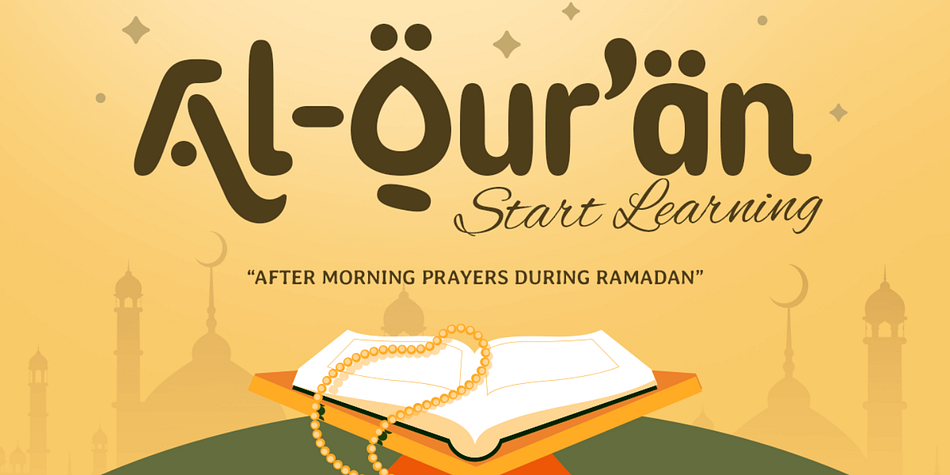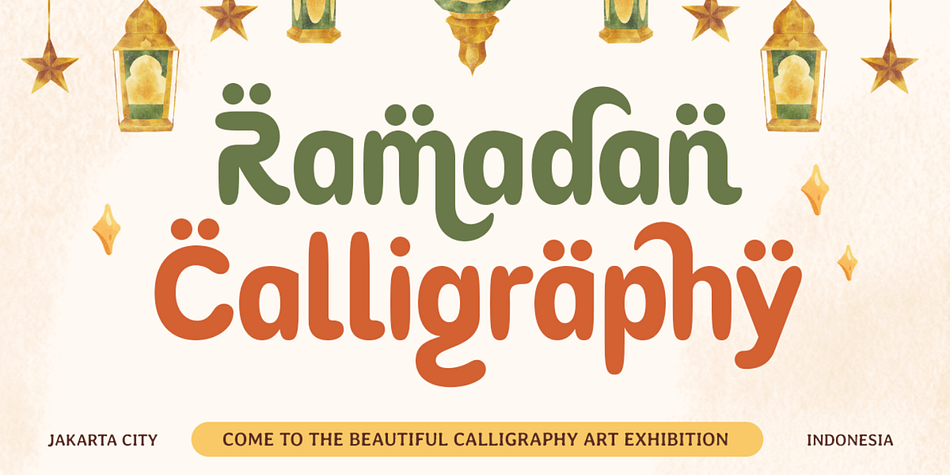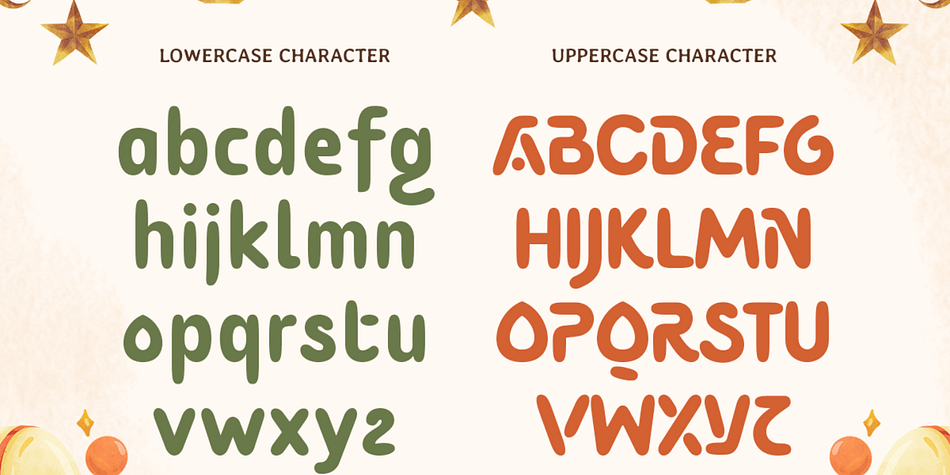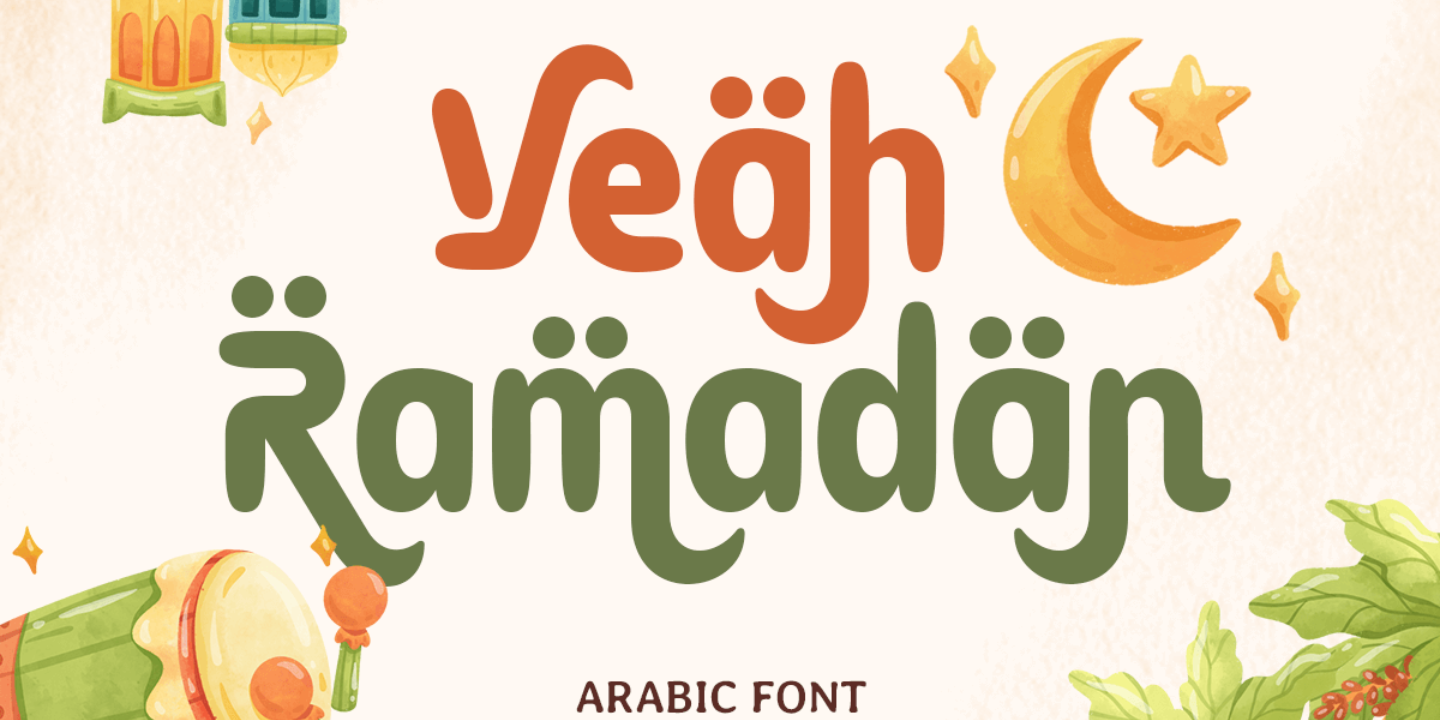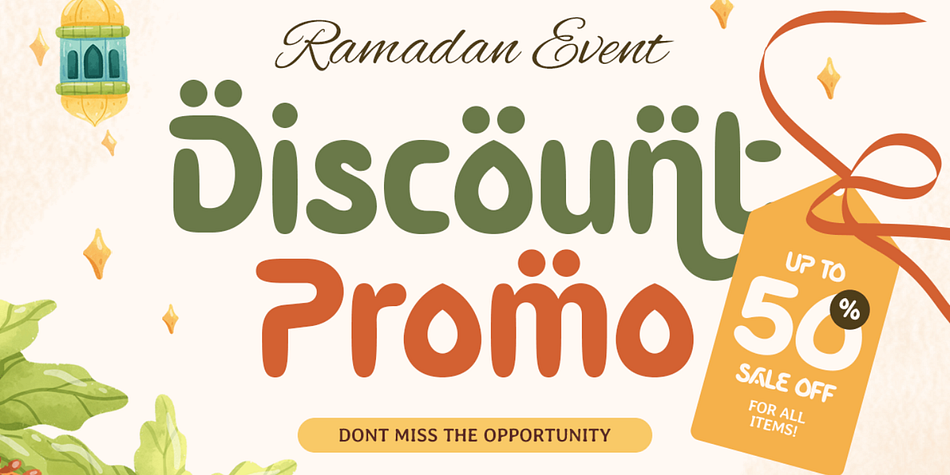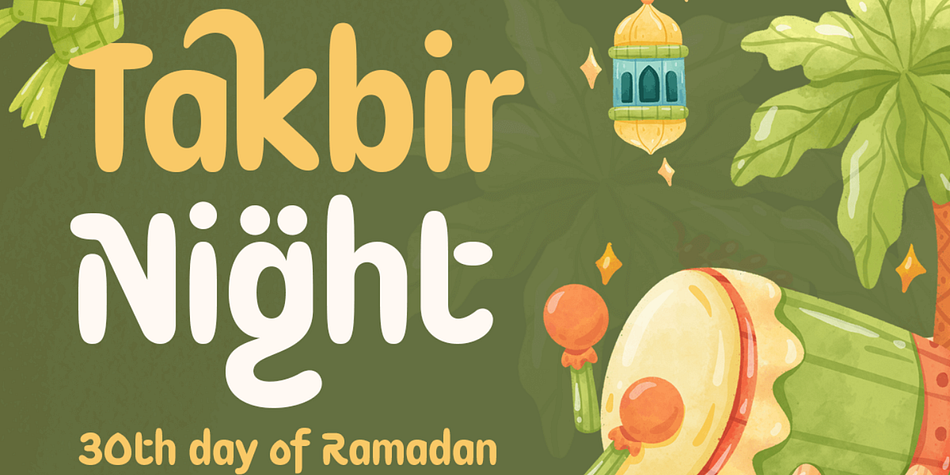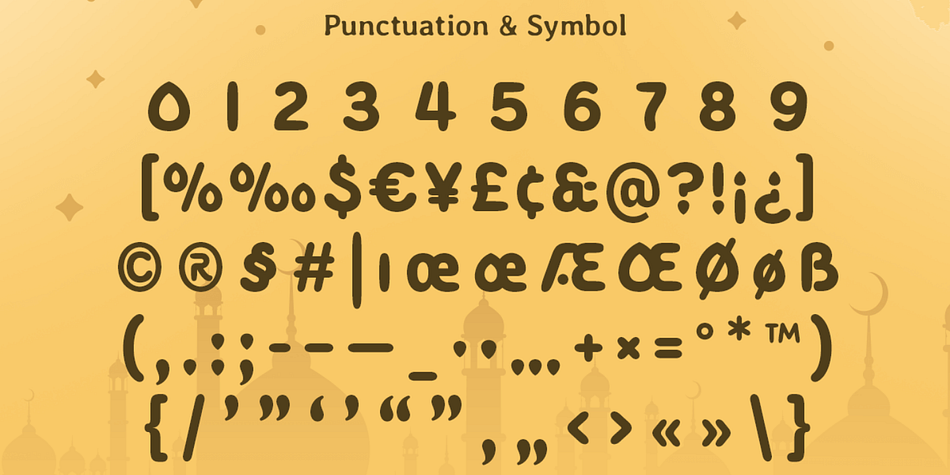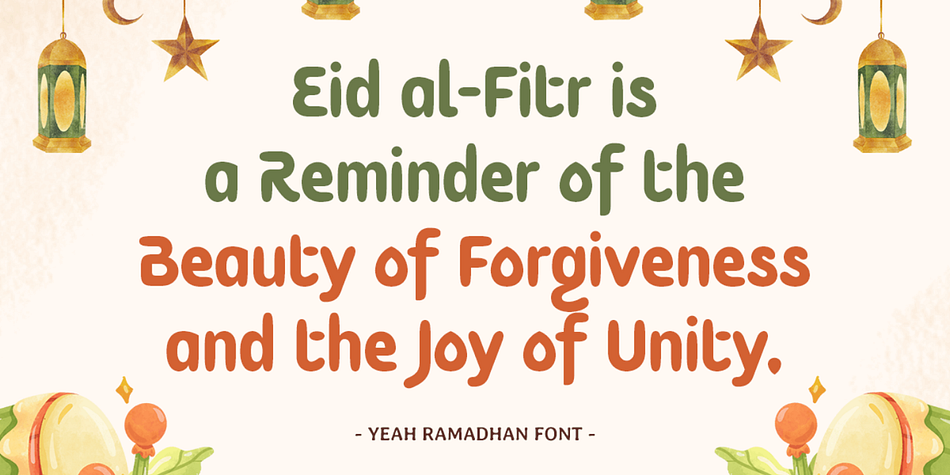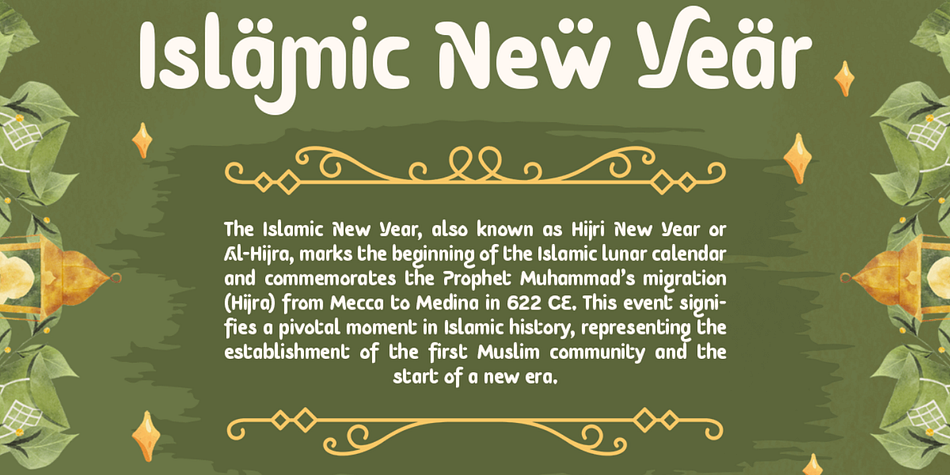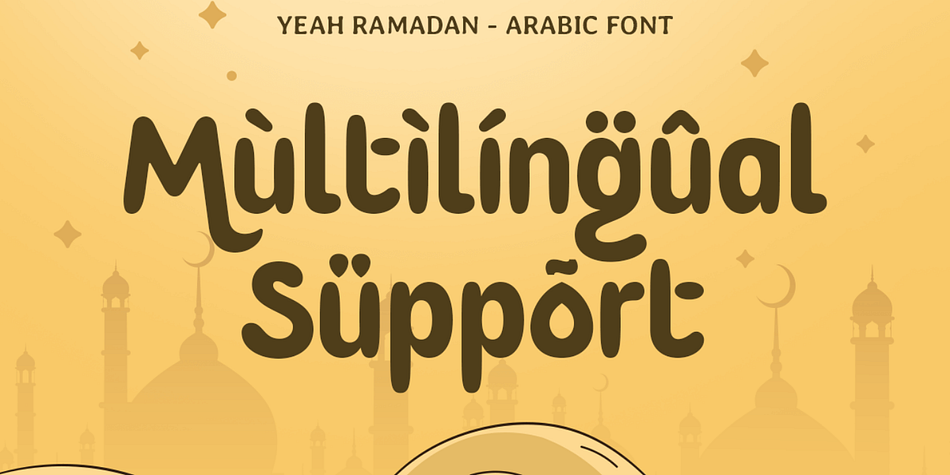
Celebrate the Spirit of Ramadan
Yeah Ramadan is a font inspired by the rich cultural heritage of Arabic calligraphy, capturing the festive and spiritual essence of Ramadan. With its graceful strokes and harmonious curves, this font brings tradition and modernity together in perfect balance.
Perfect for Festive Creations
Designed for celebration, Yeah Ramadan is ideal for creating invitations, greeting cards, packaging, and branding projects related to Islamic events. Whether you’re working on festive campaigns or elegant designs, this font radiates warmth and cultural significance.
A Blend of Art and Design
Yeah Ramadan transforms your designs into timeless pieces of art. Perfect for projects that celebrate Islamic culture and festive occasions, this font will add a touch of elegance and authenticity to your work.
Yeah Ramadan Arabic Font Features:
Alternates Characters Ready
Punctuation, Number, and Symbol
Uppercase and Lowercase
Opentype Features
Multilingual Characters available for:
Afrikaans, Albanian, Asu, Basque, Bemba, Bena, Breton, Chiga, Cornish, Dutch, English, Estonian, Filipino, Finnish, Friulian, Galician, German, Gusii, Indonesian, Irish, Italian, Kabuverdianu, Kalenjin, Kinyarwanda, Luo, Luxembourgish, Luyia, Machame, Makhuwa-Meetto, Makonde, Malagasy, Manx, Morisyen, North Ndebele, Nyankole, Oromo, Portuguese, Quechua, Romansh, Rombo, Rundi, Rwa, Samburu, Sango, Sangu, Scottish Gaelic, Sena, Shambala, Shona, Soga, Somali, Spanish, Swahili, Swedish, Swiss.